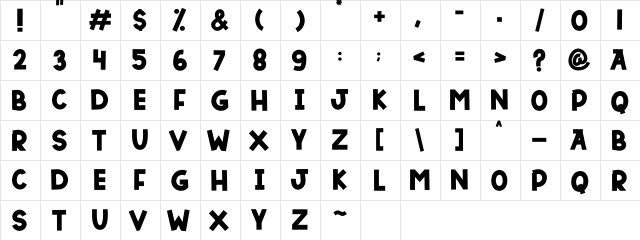
SWEETY BAEZ Regular
Design Context for SWEETY BAEZ Typeface
SWEETY BAEZ is a composed and adaptable typeface that performs quietly and consistently across a wide range of design contexts.
Pro Tip: Use SWEETY BAEZ in both headline and body roles to test its range before committing to a single application.